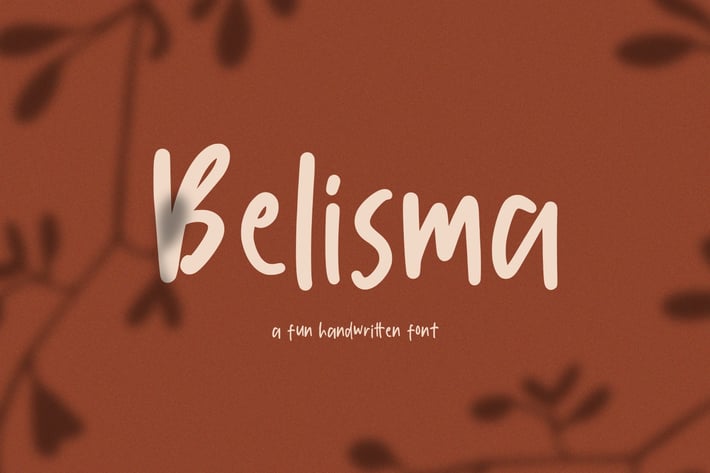
Belisma Handwritten Font
Belisma Handwritten Font- A Handwritten Font, every single letter has been carefully crafted to make your text looks beautiful. it's perfect for logos, name card, magazine layouts, invitations, headers, or even large-scale artwork.